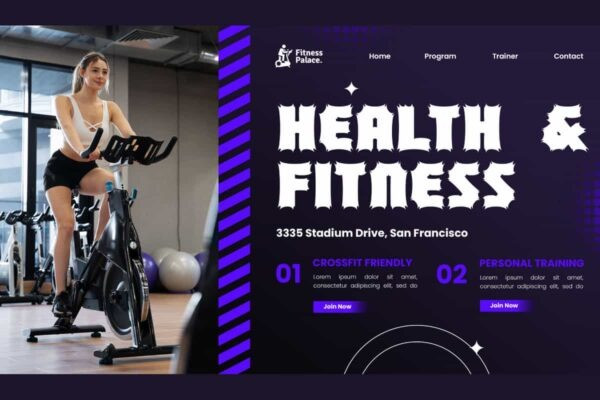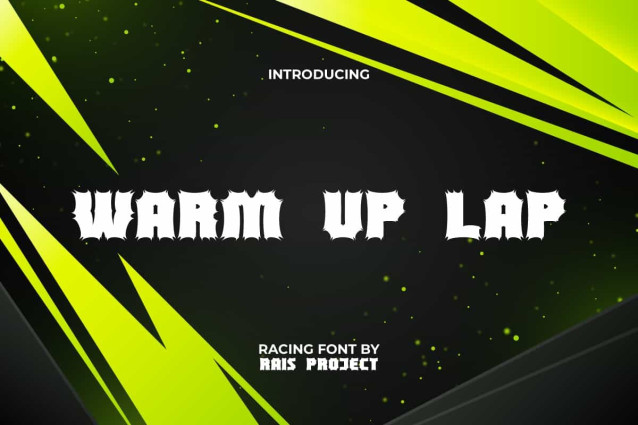
Warm Up Lap Font
Warm Up Lap Font is a unique decorative font with a strong look for automotive inspired concepts. This font has a dominant character with additional decorations in each corner so it looks unique. It will look good on poster, signage, stationery, label, custom design, invitation, product packaging, quotes, web, and more!
Warm Up Lap Font includes a full set of ALL CAPS for Uppercase and Lowercase Letters, Numerals, and large range of Punctuation. This bold font will steal the attention of many people and will be suitable for various industries, such as fashion, game, sports, movie, music, cafe, event or festival, printing, publishing, etc.